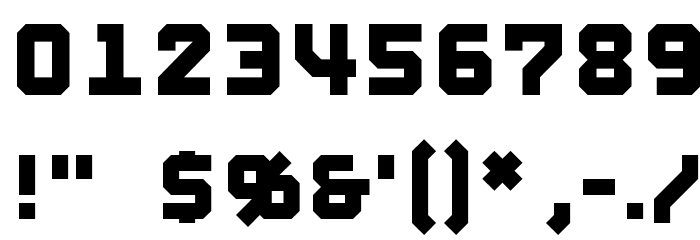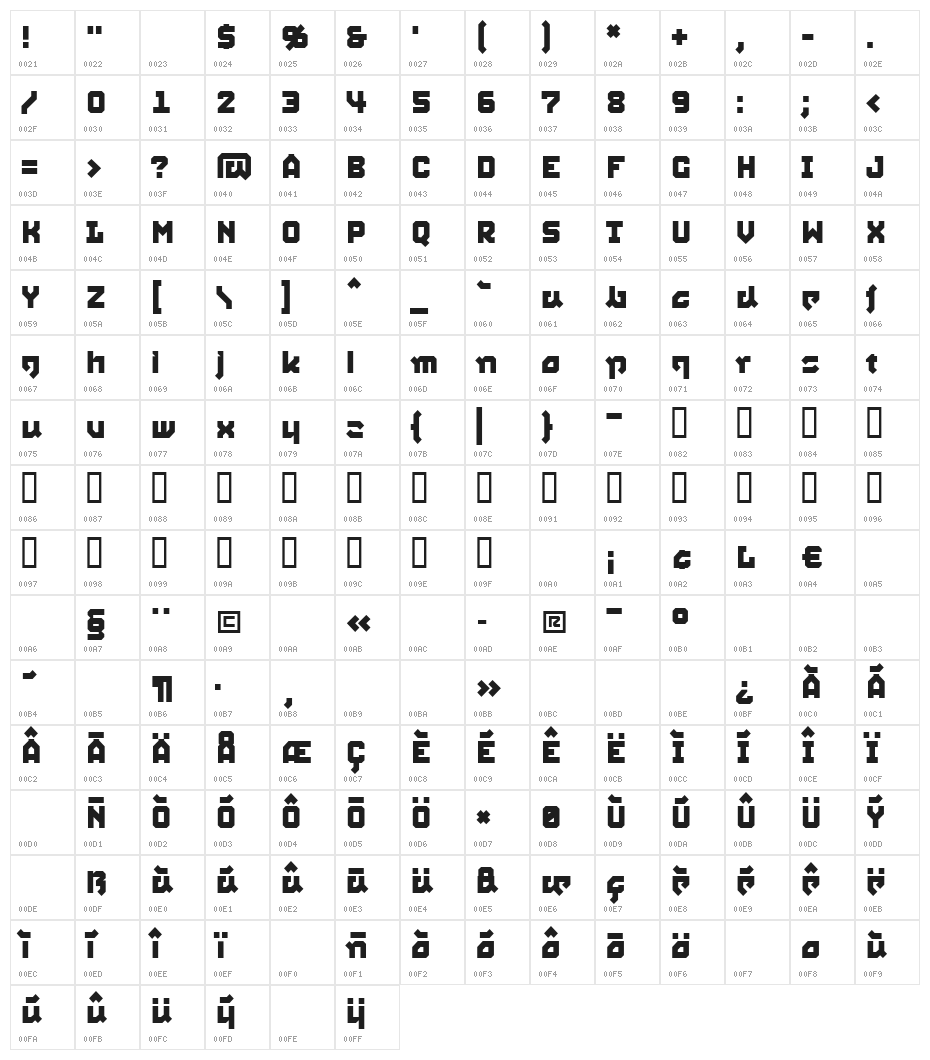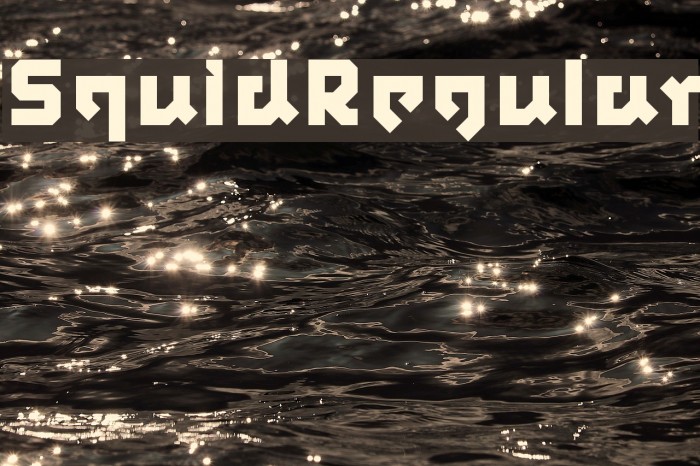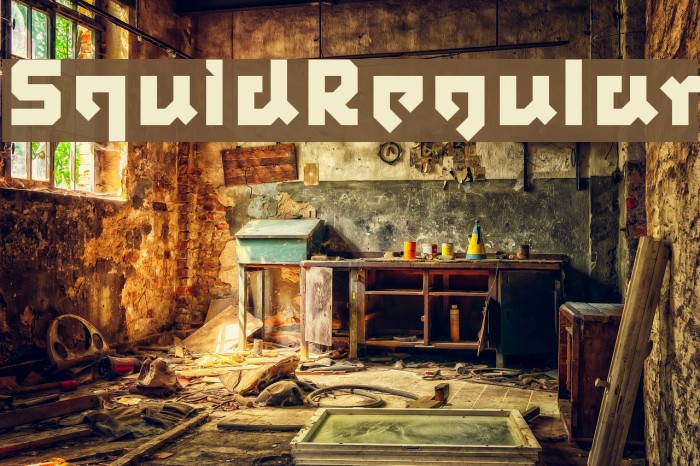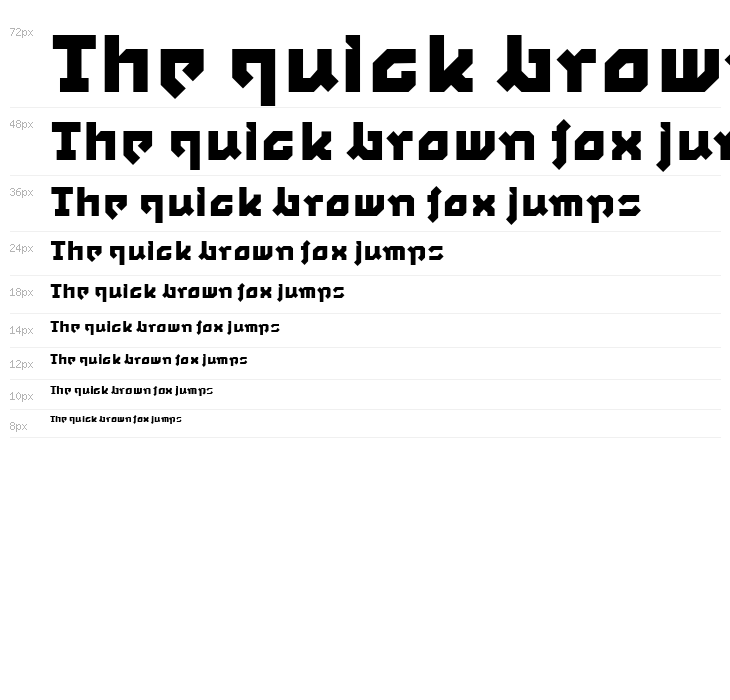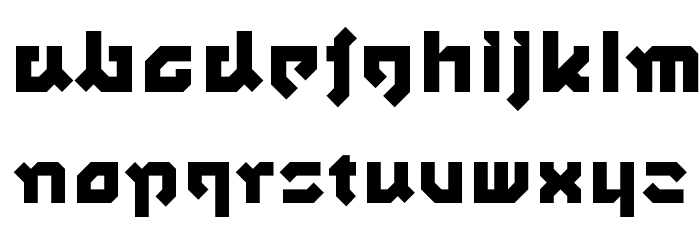
SquidRegular Font
SquidRegular Description
This font features a bold, geometric style with a strong presence. The characters are constructed with sharp angles and straight lines, giving it a modern and industrial feel. The uppercase and lowercase letters maintain a consistent width, creating a uniform appearance. The numerals and special characters follow the same design principles, ensuring cohesion across all elements. The font's distinctiveness lies in its blocky, almost stencil-like design, which makes it stand out in any application.
| Proposed Projects | Ideal for branding, posters, and headlines that require a strong, impactful look. |